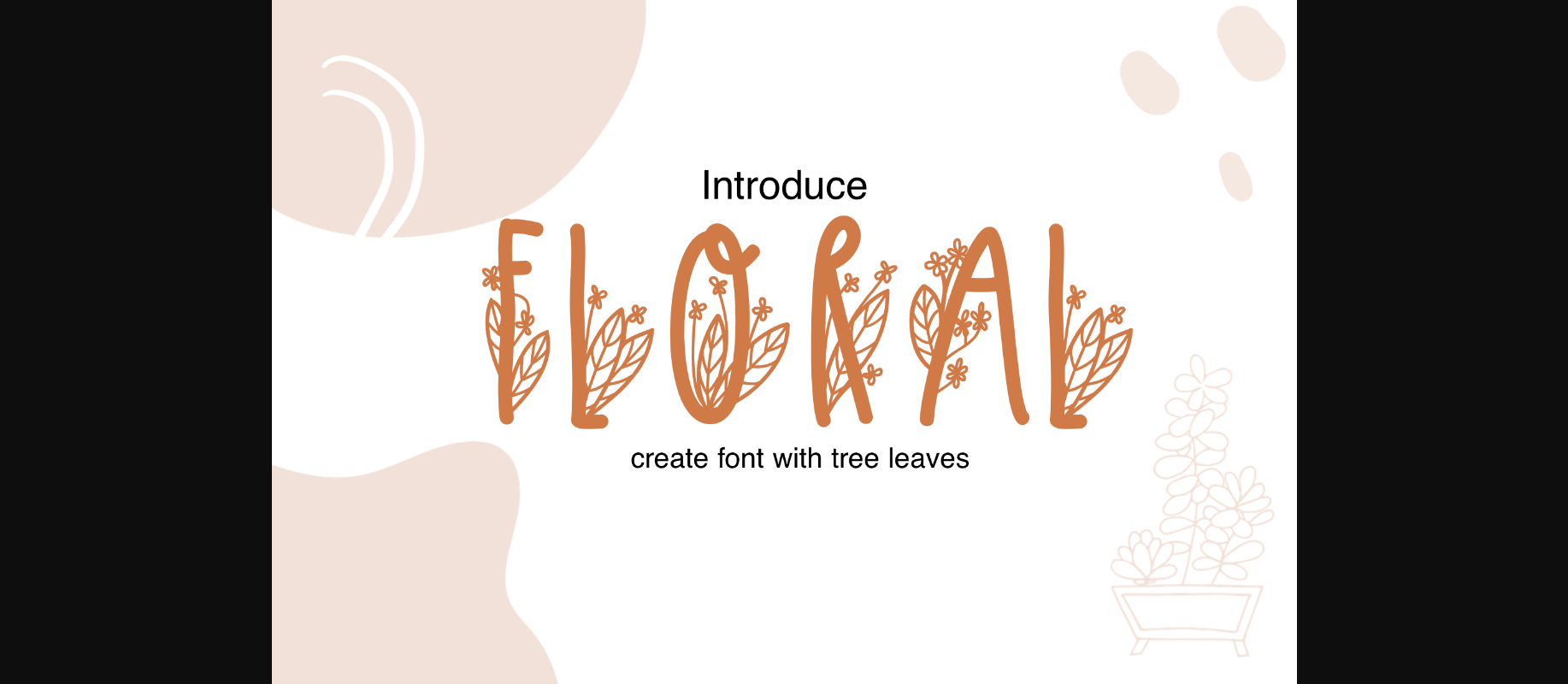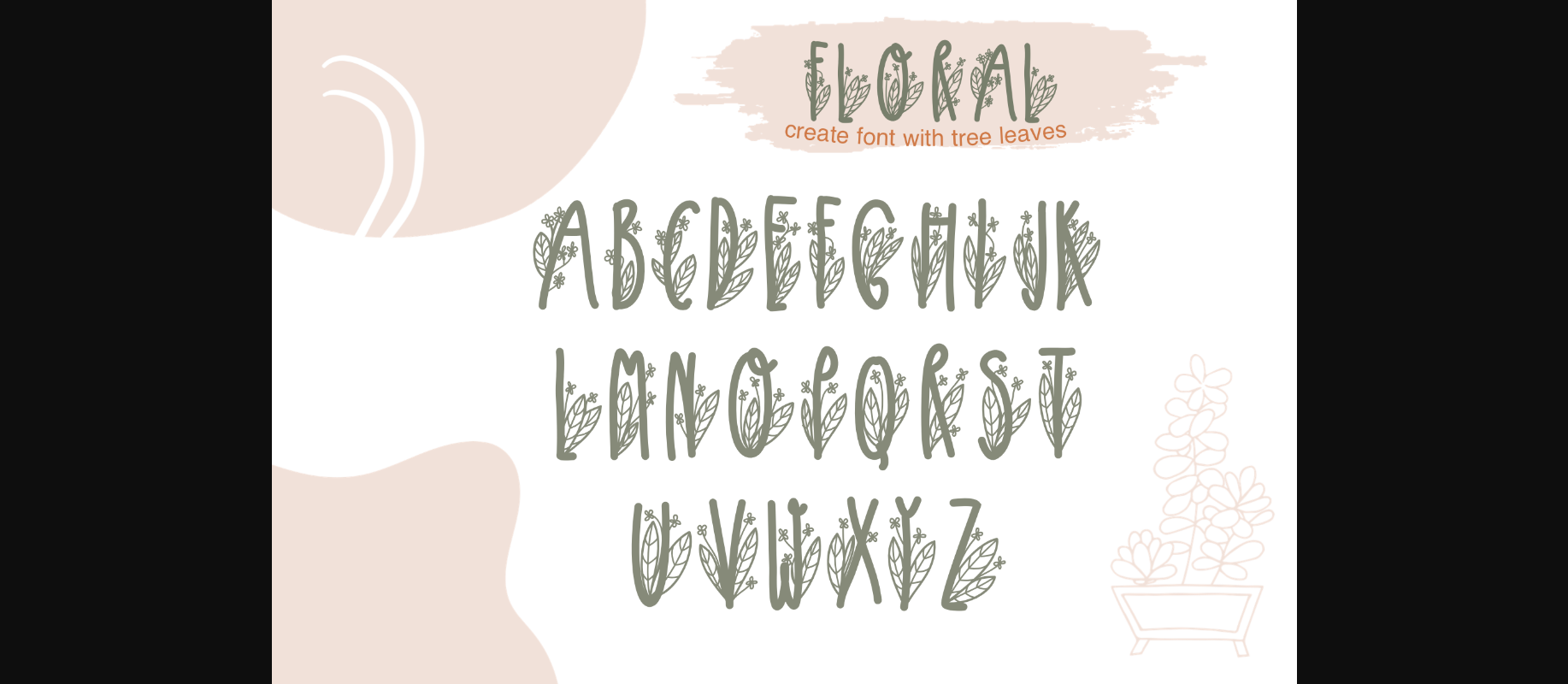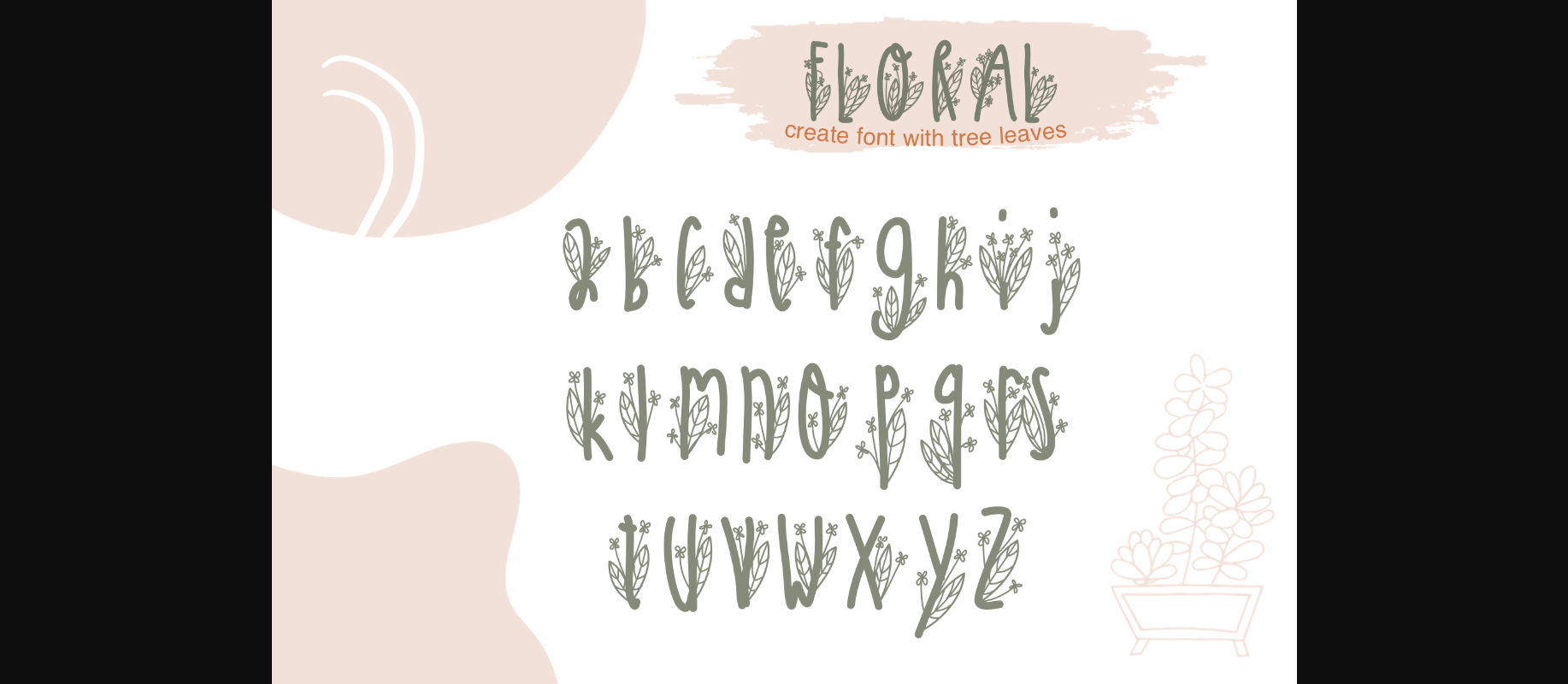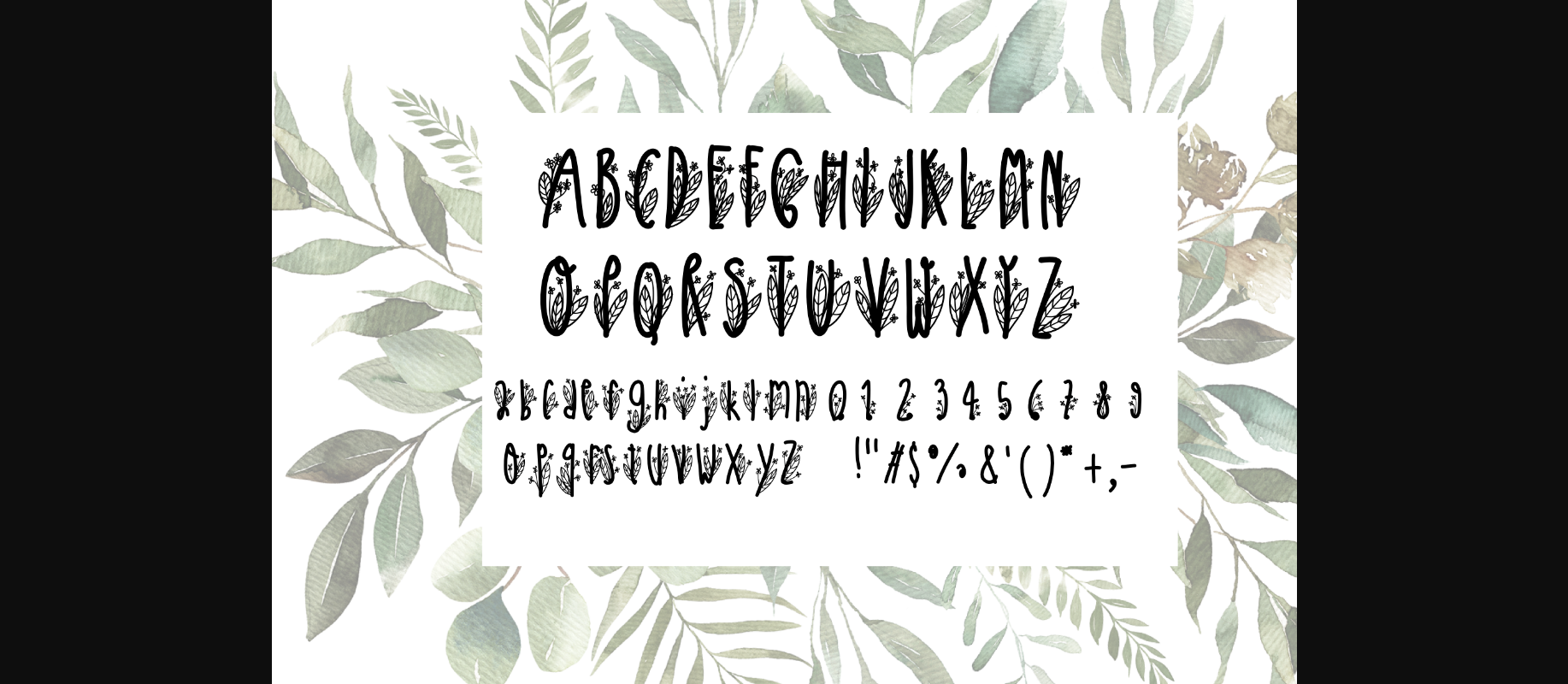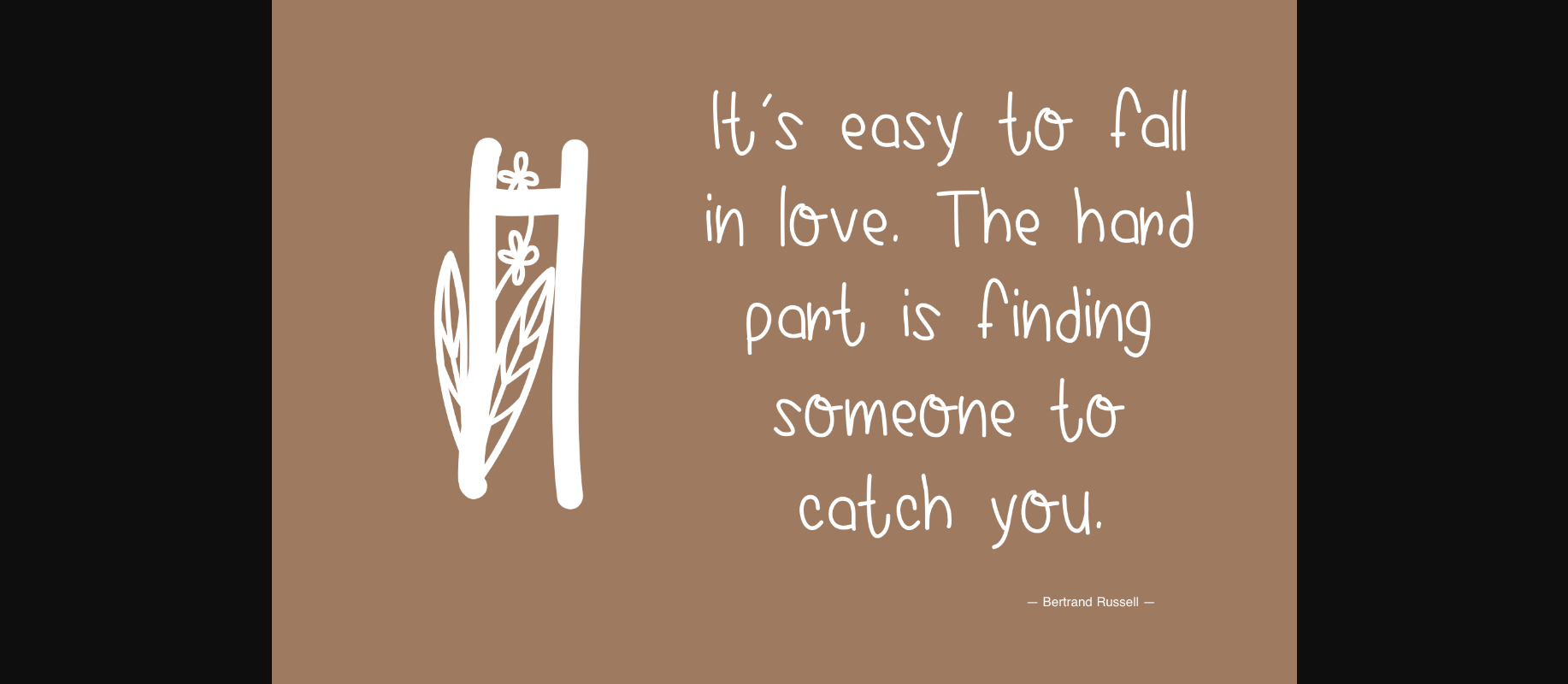
Floral Font
About Floral Font
Floral is a sweet and unique decorative font, featuring beautiful leaves. Fall in love with it and bring your projects to the highest levels!